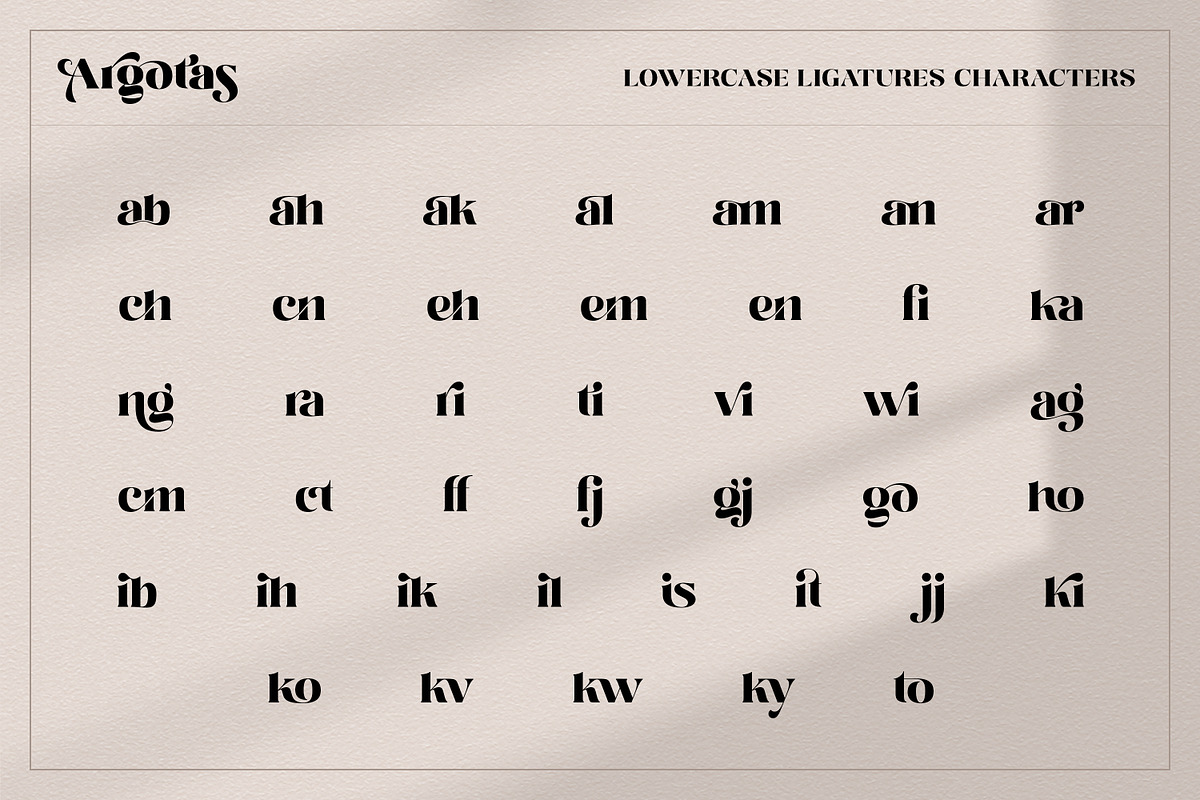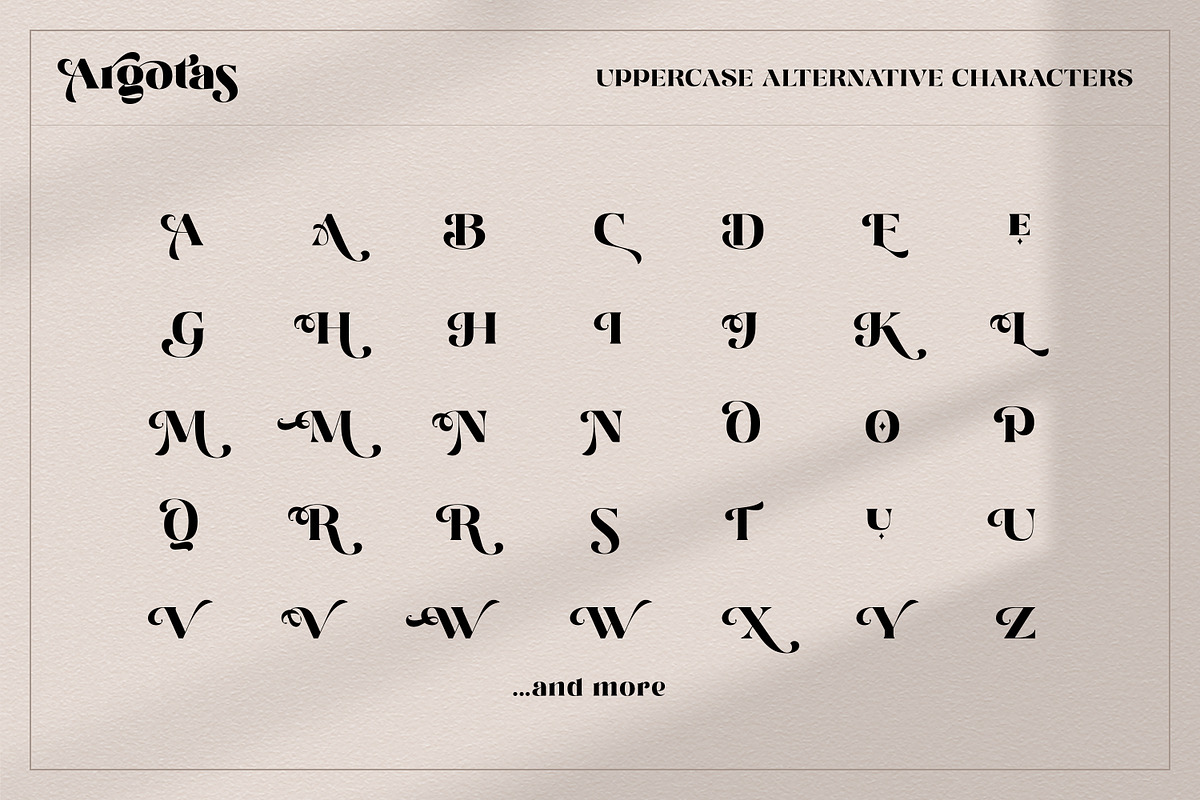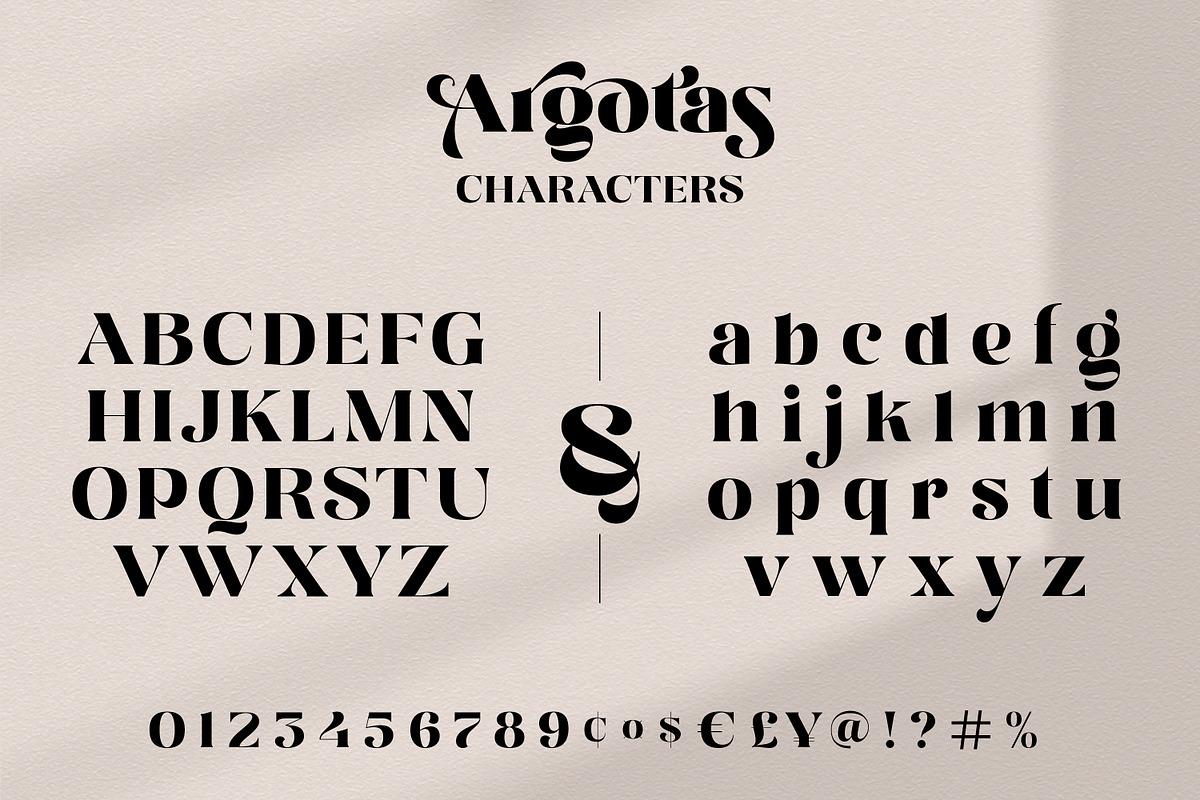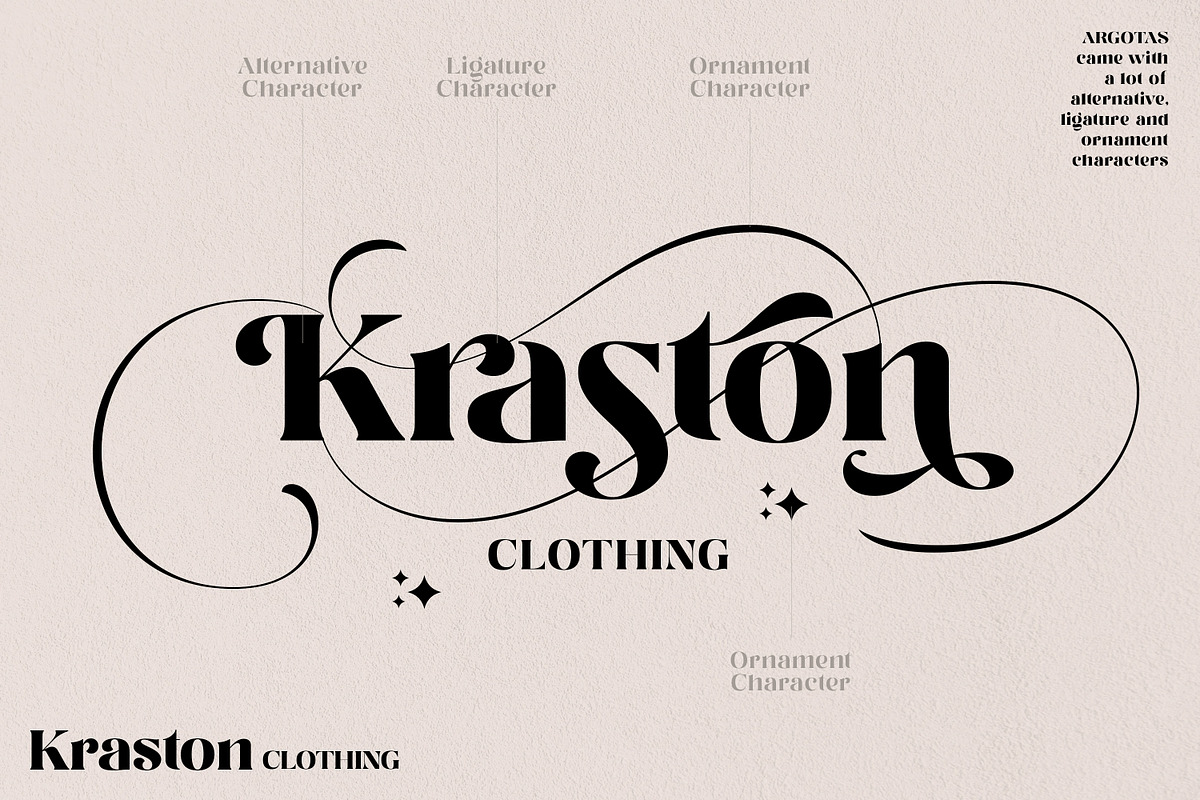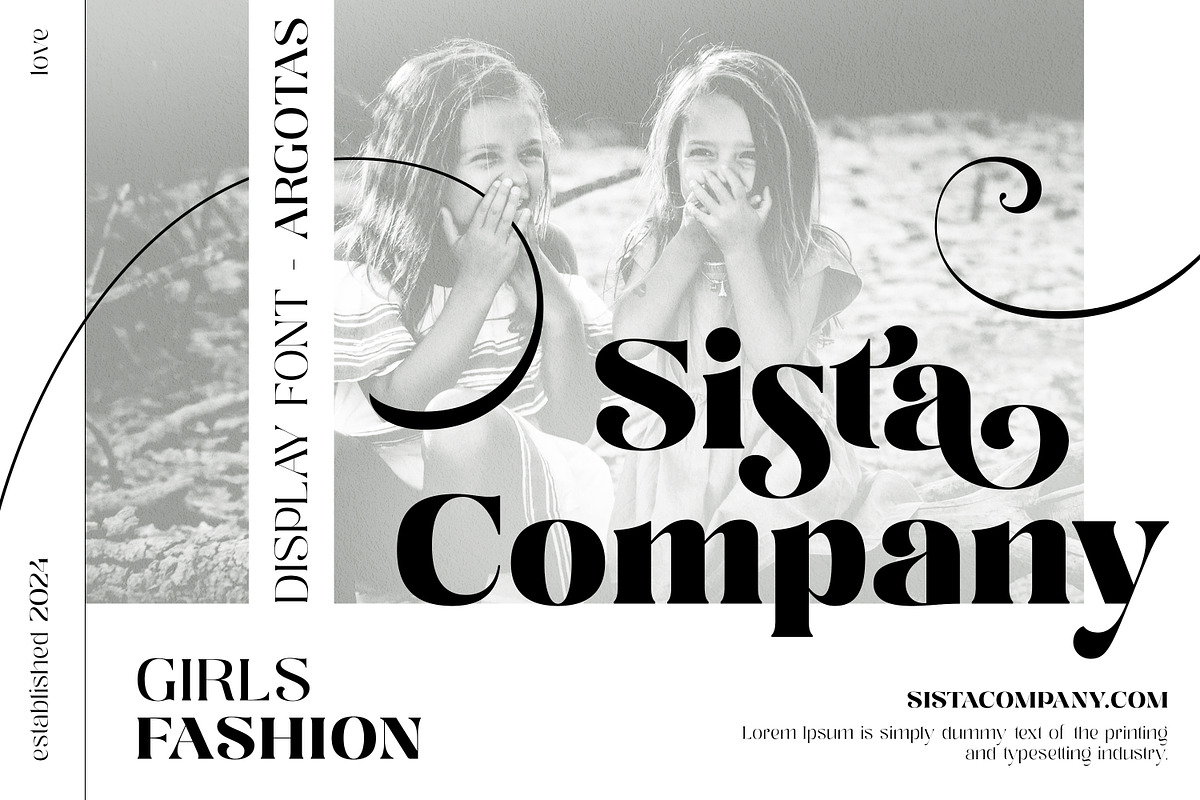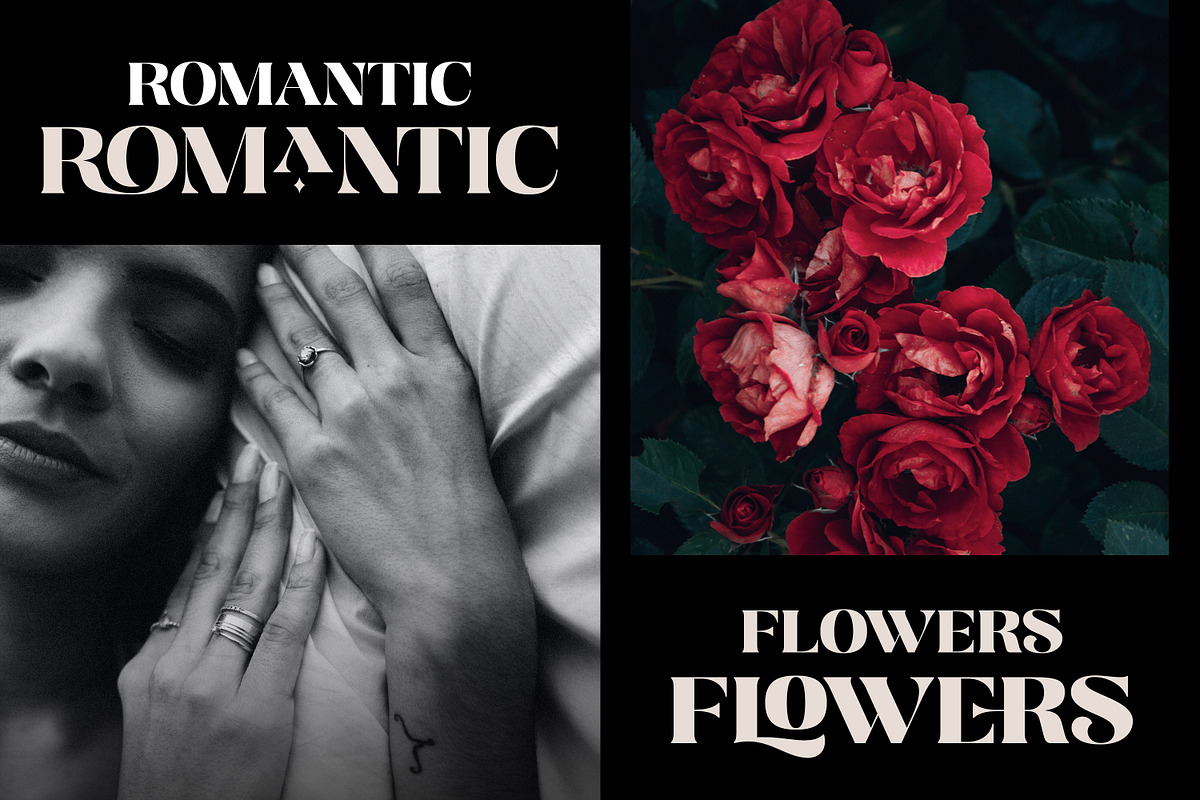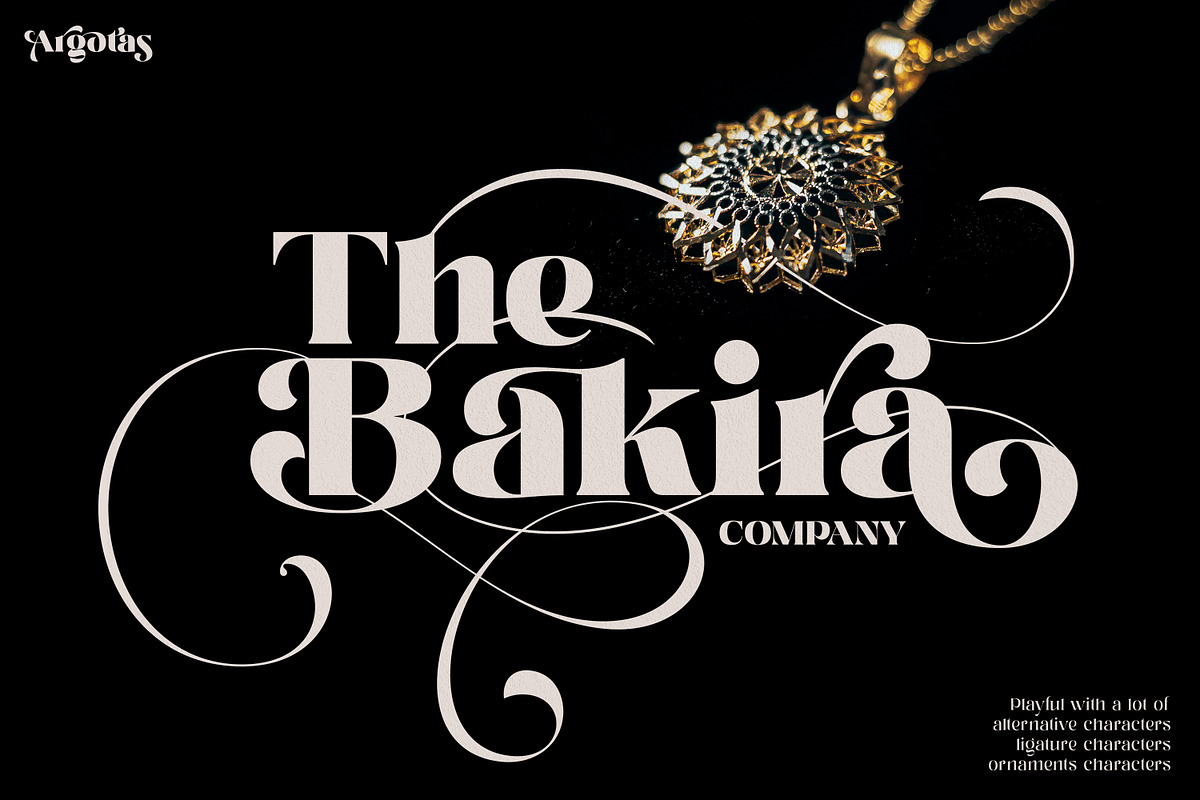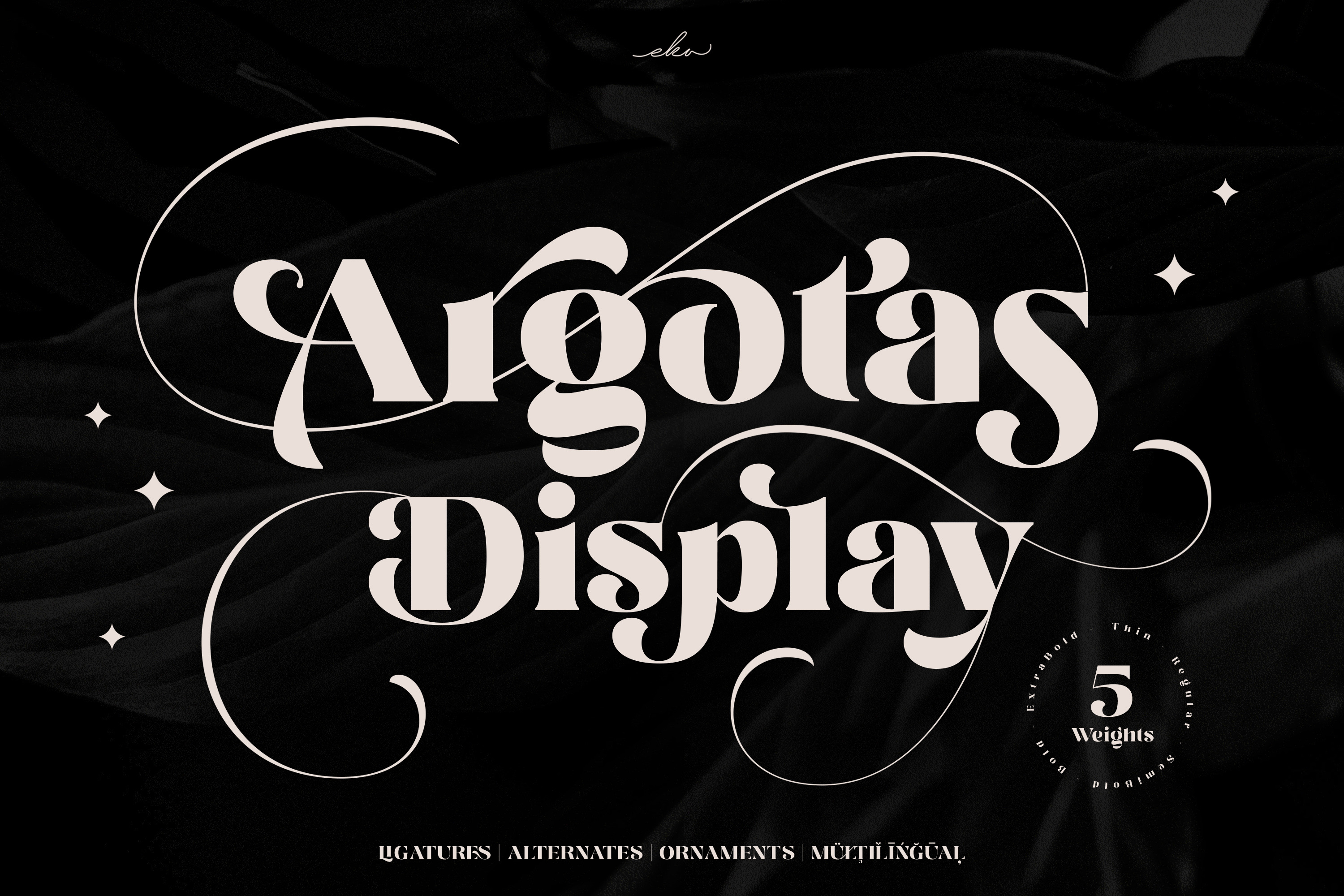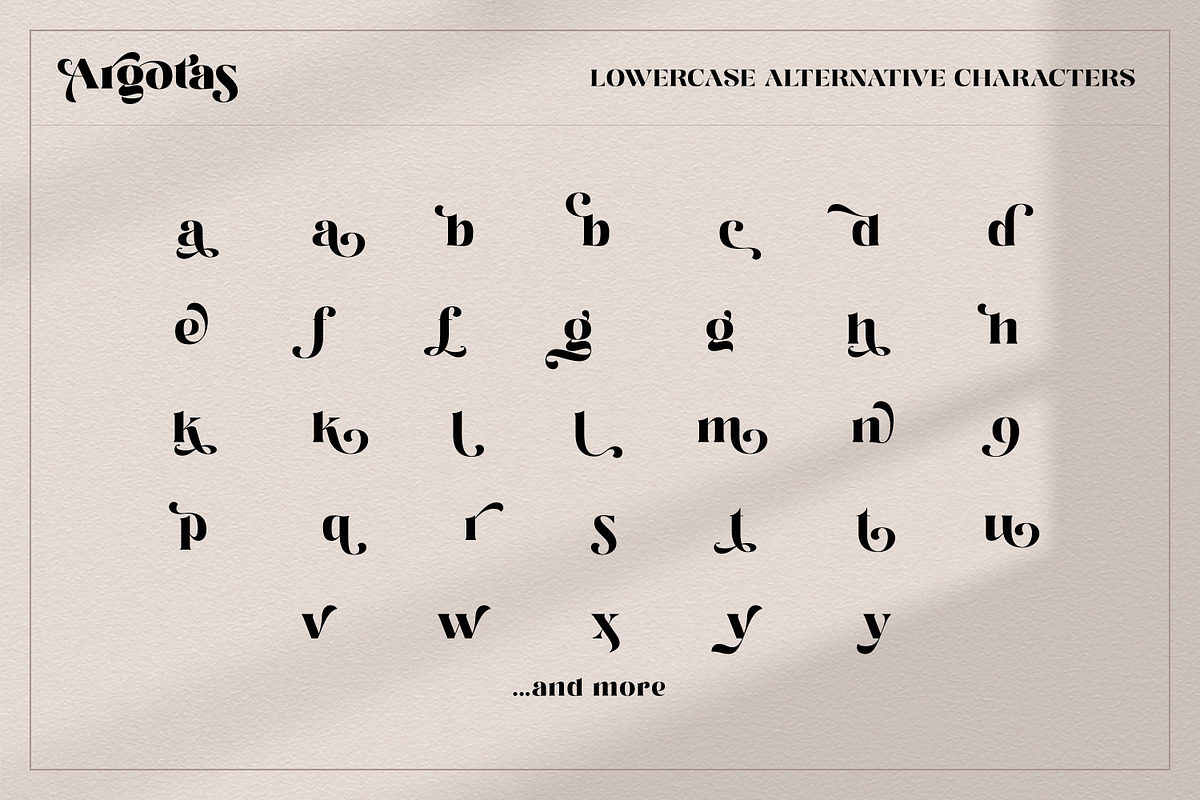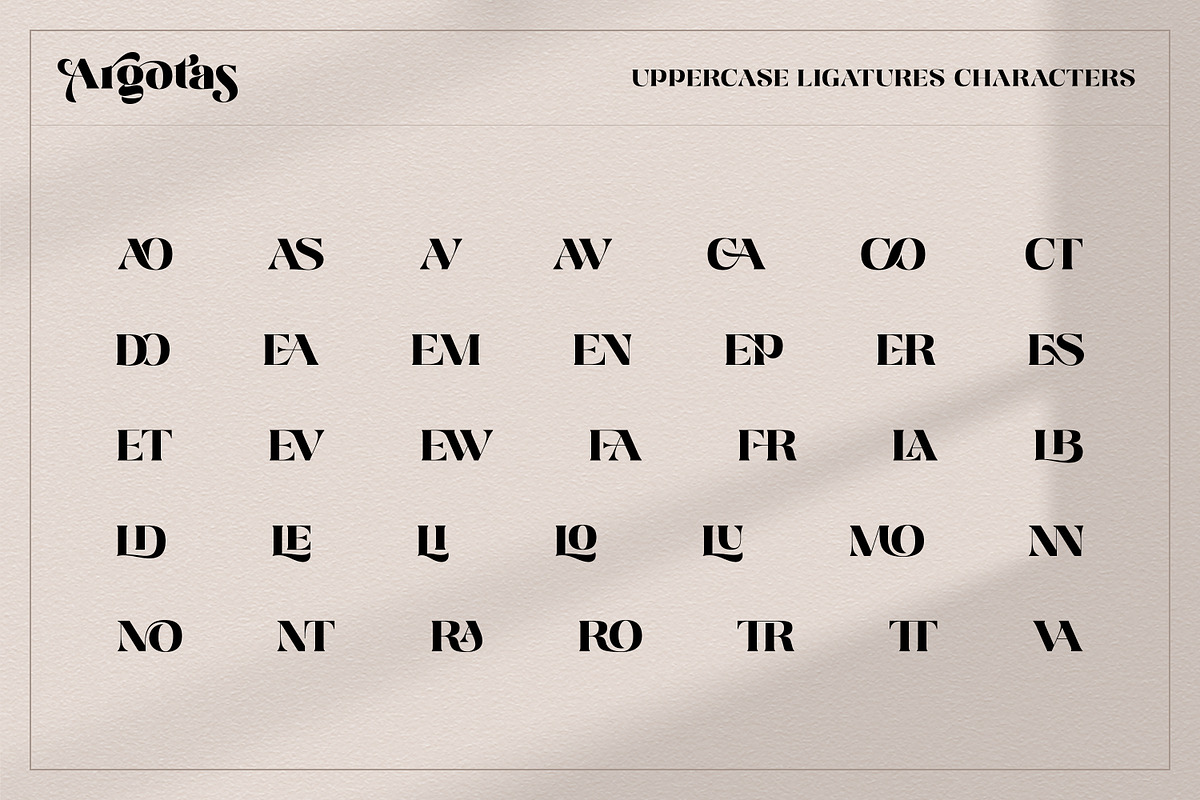
Argotas | Serif Display Font
Argotas is an unique display font that consist of 5 weights from Thin to ExtraBold. Argotas font also comes with a lot of alternative characters, ligature characters and ornament characters which will give you a wide range to make your project design looks more attractive and beautiful by combining all the special characters with ornament characters. Argotas font will become your favorite font because it is suitable to apply in many different projects such as logo design, branding, poster, heading magazines, labels, quotes card, wedding card, merchandise, invitation, presentation, advertising and so much more!